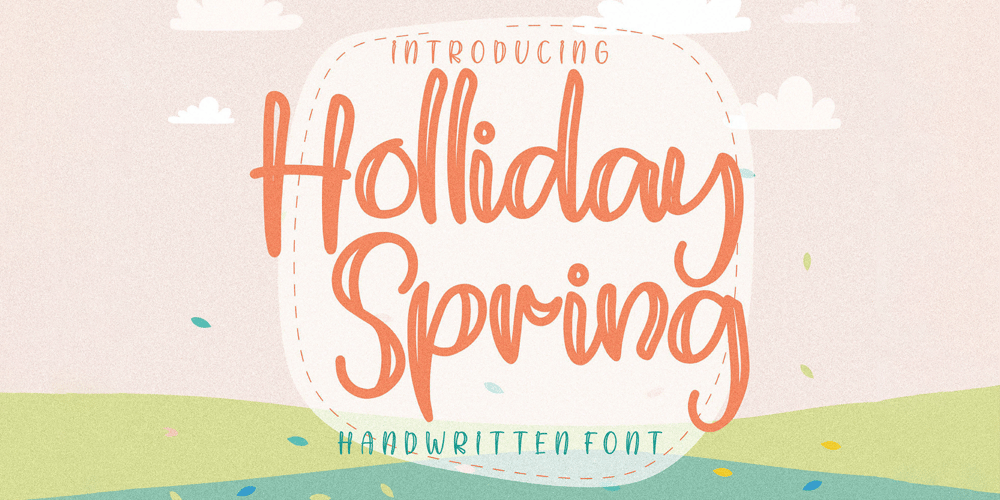
Holliday Spring Font Family was designed by Dimas Alif Maulana and published by Integritype. Holliday Spring contains 2 styles and family package options. Product DescriptionHolliday Spring is a funny display, delicate and cute handwritten font. Its distinct and well rounded letters make this font a masterpiece. Fall in love with its incredibly versatile style and use it to create spectacular designs!Product Content :- Holliday SpringFeatures :- Uppercase & Lowercase- Numerals- Punctuations (OpenType Standard)- Accents (Multilingual Characters)- Ligatures and Alternative Style Stylistic Set- Works on PC & Mac- Simple installations- Accessible in the Adobe Illustrator, Adobe Photoshop, Adobe InDesign, even works on Microsoft Word.I hope you enjoy this font. If you have any questions please don’t hesitate to drop me a message ๐